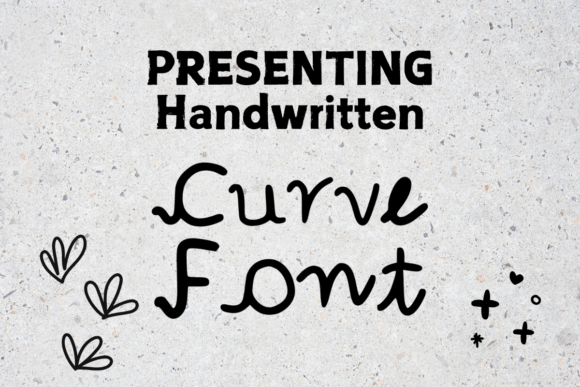
Give Your Designs a Personal Touch
Have you ever stared at a blank page, feeling stuck and unsure of where to start? We’ve all been there. But then, the creative spark strikes – a burst of inspiration that sets your imagination ablaze. For designers, this moment is a thrill, a chance to bring a fresh idea to life. And that’s exactly what the Handwritten Curve Font is designed to do.
This charming font is more than just a collection of letters and symbols – it’s a way to infuse your designs with personality and whimsy. With its natural, imperfect strokes and adorable doodles, the Handwritten Curve Font is perfect for adding a touch of warmth and character to your work. Whether you’re creating greeting cards, branding materials, or social media posts, this font is sure to make your designs stand out from the crowd.
Key Features of Handwritten Curve Font
- Unique Characteristics: The Handwritten Curve Font features a distinctive, flowing script style with subtle variations in letterforms, giving it a personal and elegant touch.
Designer Review: Handwritten Curve Font
Overall, I think the Handwritten Curve Font has some great qualities that make it a solid choice for designers. ✨ It’s versatile and can be used for a variety of projects, from posters to branding materials. The font’s curves are smooth and fluid, making it easy to read and pleasant to look at.
- The font’s cursive feel is perfect for adding a touch of elegance to a design.
- It’s available in a range of weights and styles, making it easy to customize to suit your needs.
- The font is highly legible, even at small sizes.
However, there are a few limitations to consider. ⚠️ The font may not be the best choice for projects that require a more formal or professional tone. Additionally, some of the letters can be quite ornate, which may make it difficult to read in certain contexts.
Overall, I think the Handwritten Curve Font is a great addition to any designer’s toolkit. It’s a fun and creative font that can add a lot of personality to a design. With a little bit of restraint and careful consideration, it can be a real showstopper.
Tips for Getting the Most Out of Handwritten Curve Font
Experiment with different font sizes, colors, and styles to create a unique look. Use Handwritten Curve Font in combination with other fonts to add visual interest. Apply the font to text, headings, or even entire paragraphs for a cohesive design.
Handwritten Curve Font is ideal for creating invitations, social media graphics, and marketing materials. Use it to add a personal touch to your designs, or to create a unique and eye-catching visual identity.